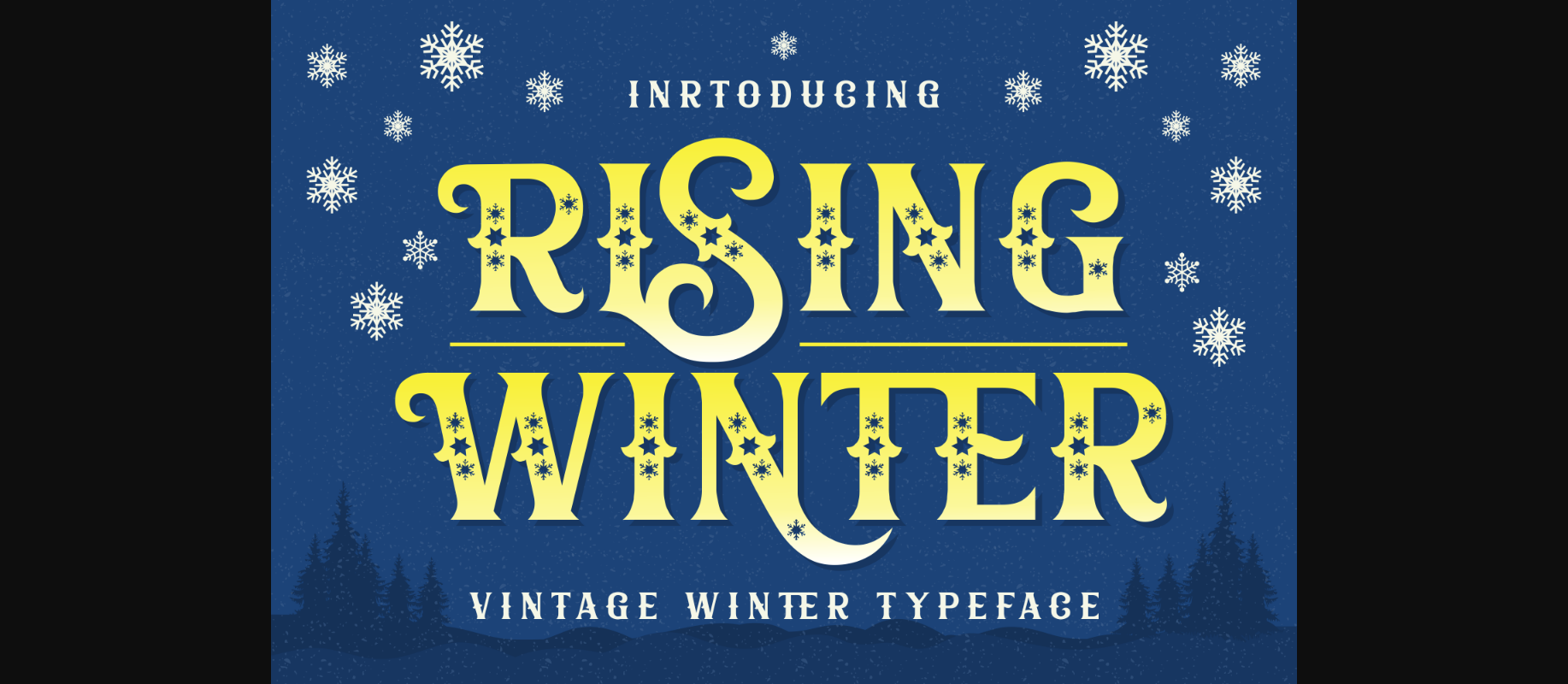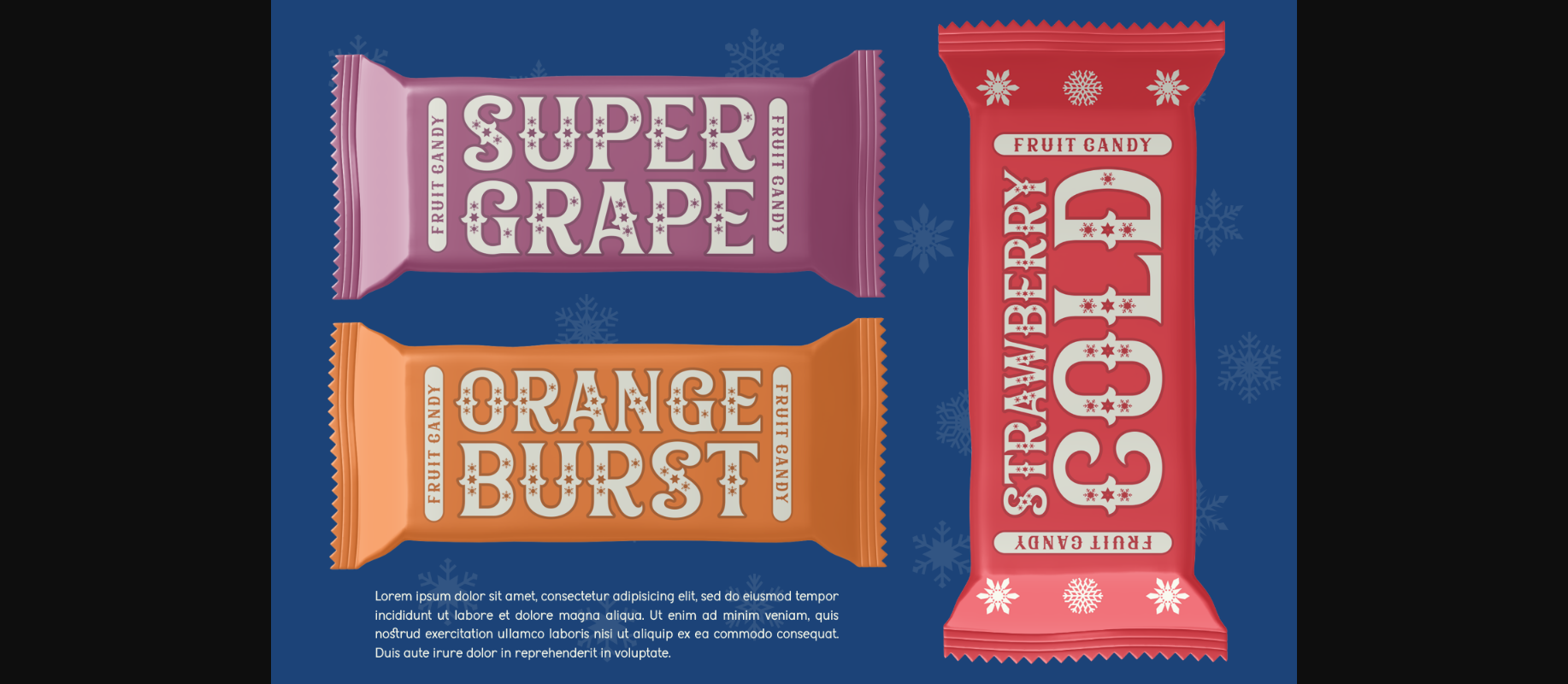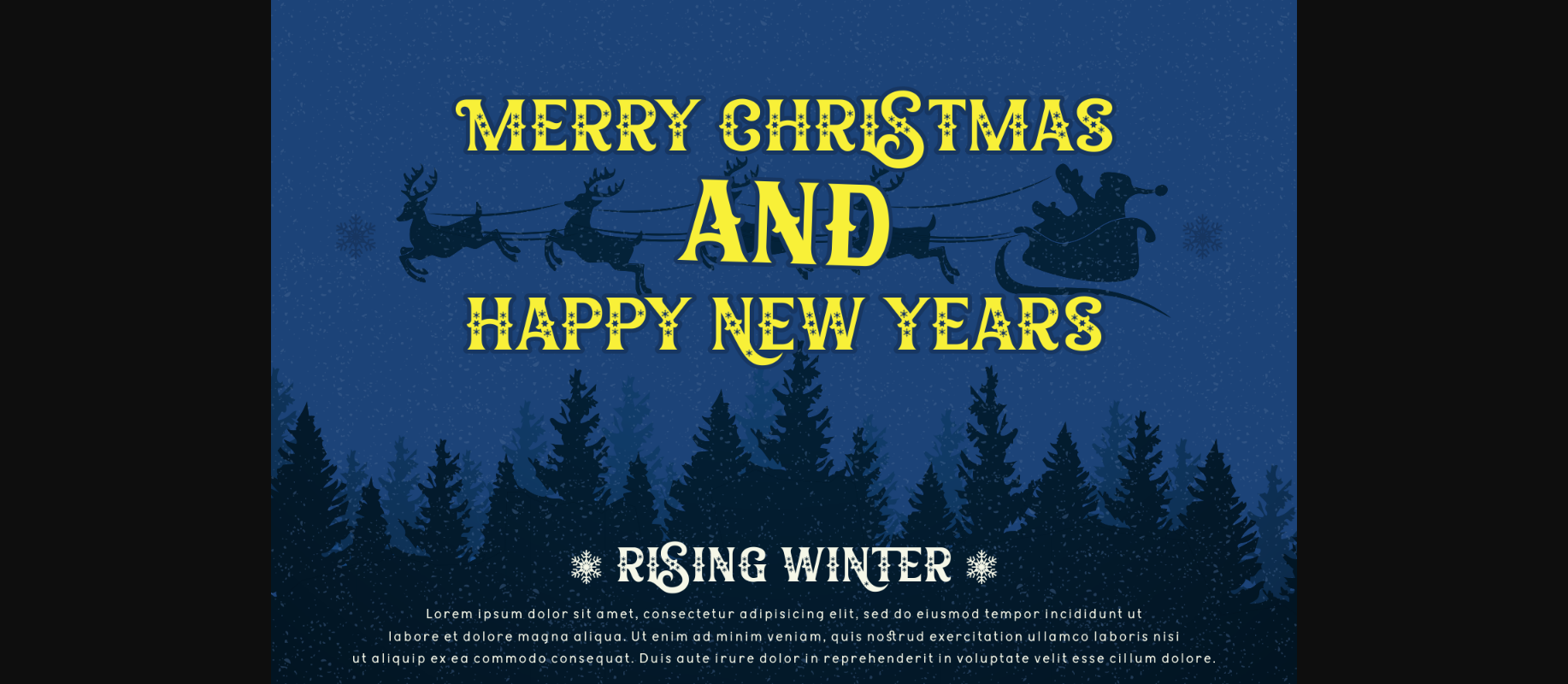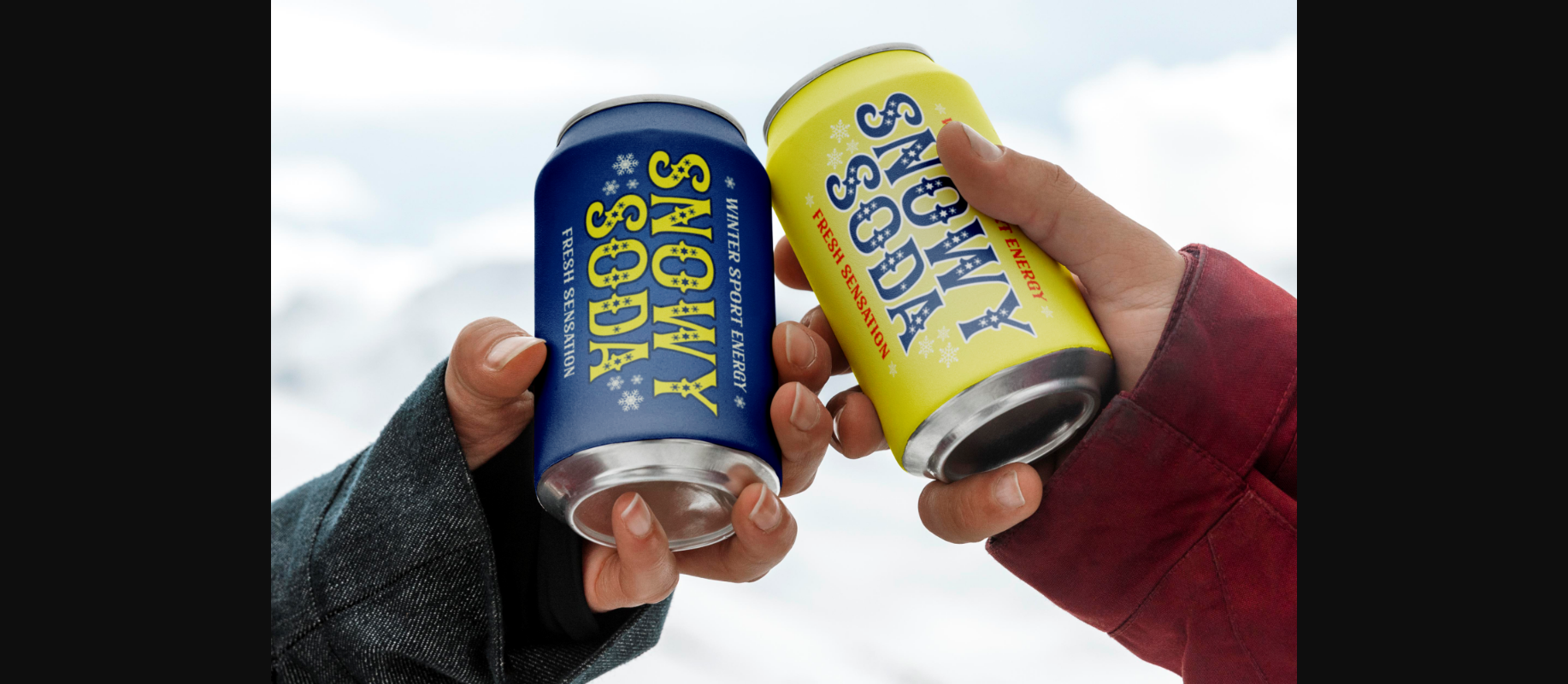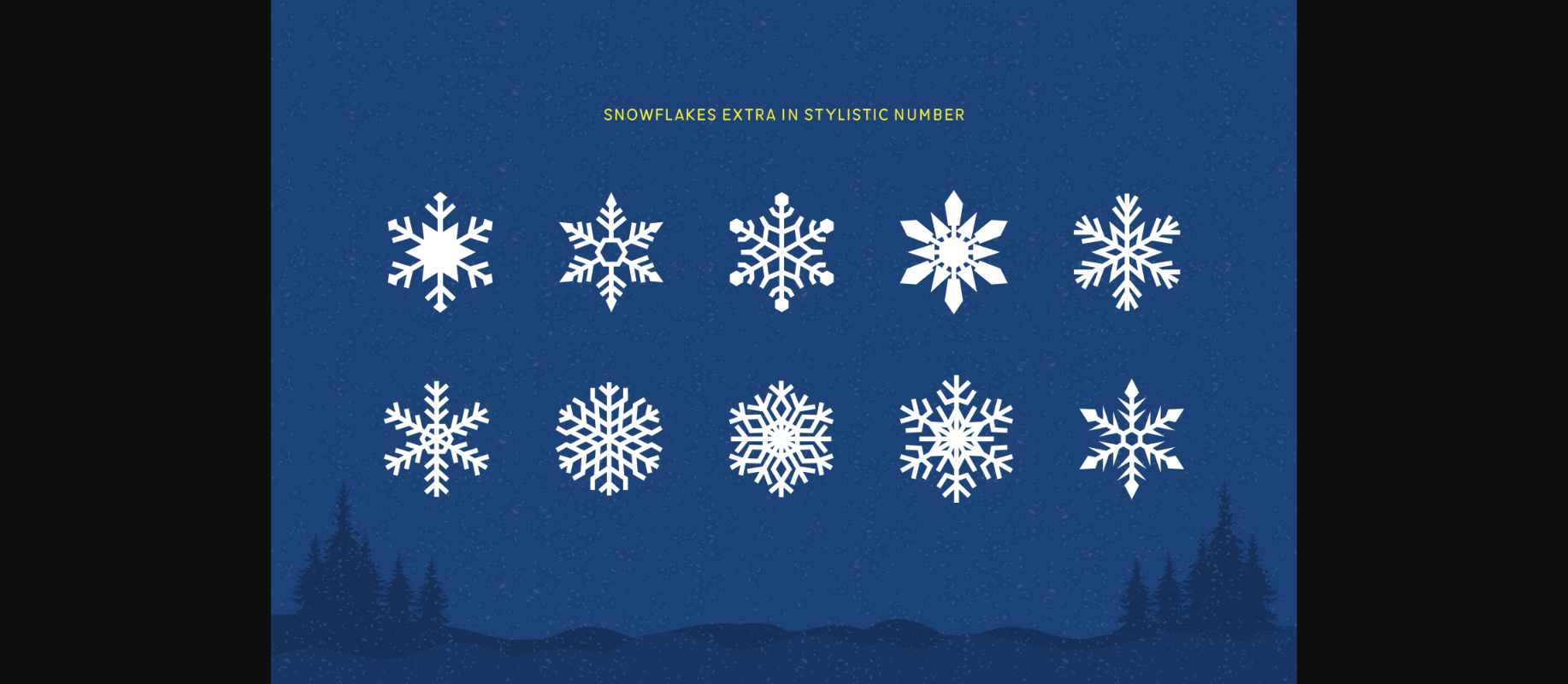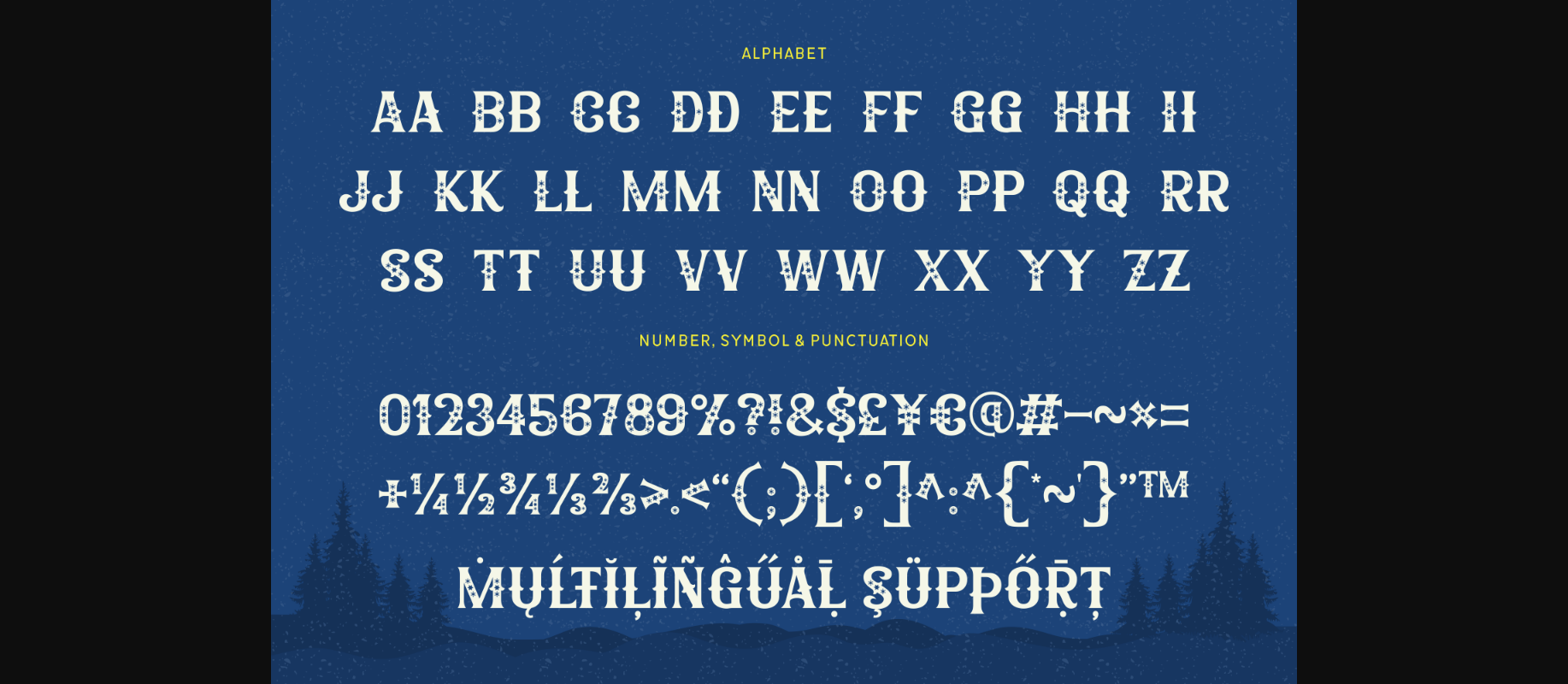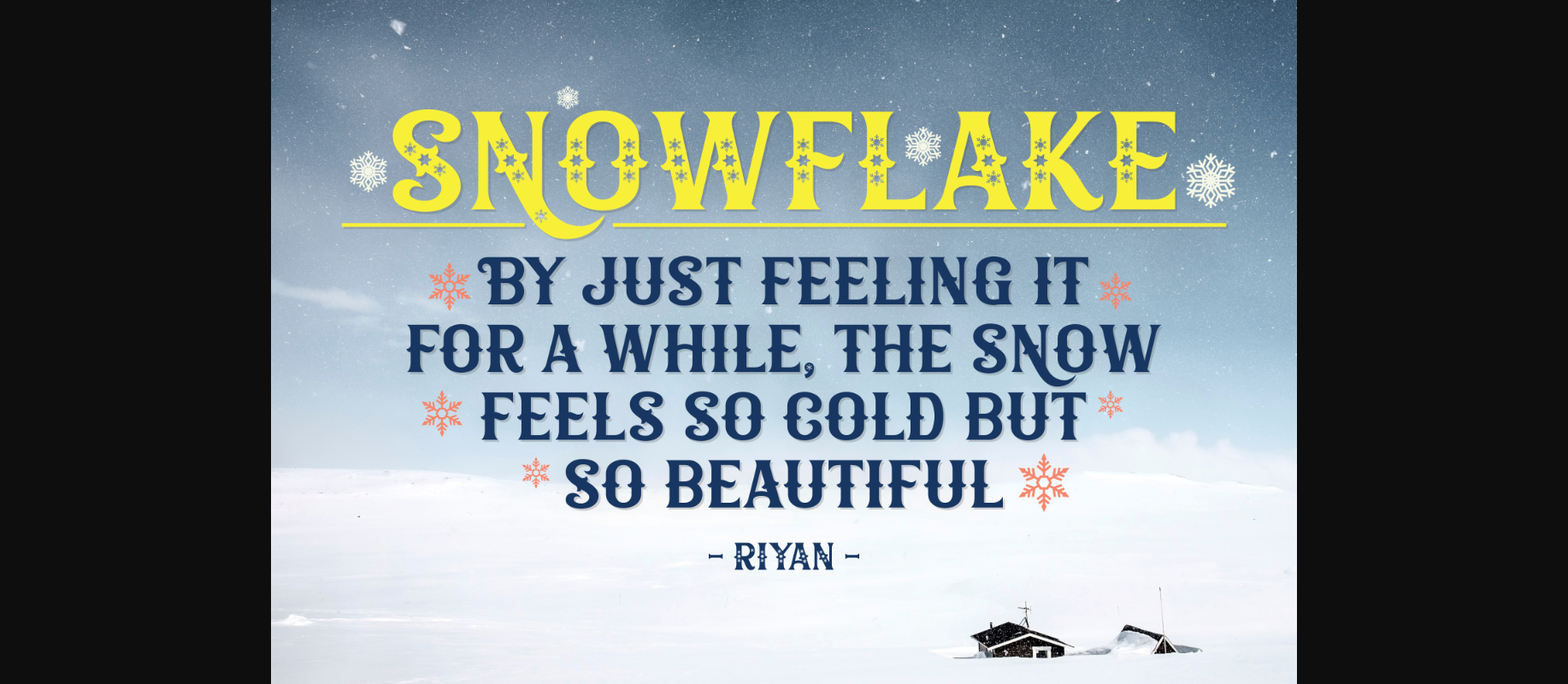
About Rising Winter Font
Rising Winter is a unique and gorgeous decorative font. It features remarkable characters and beautiful snowflake details, making it the perfect choice for outstanding winter typography. Use it for Christmas cards, party invitations, posters, clothing items, gift tags, and many more.